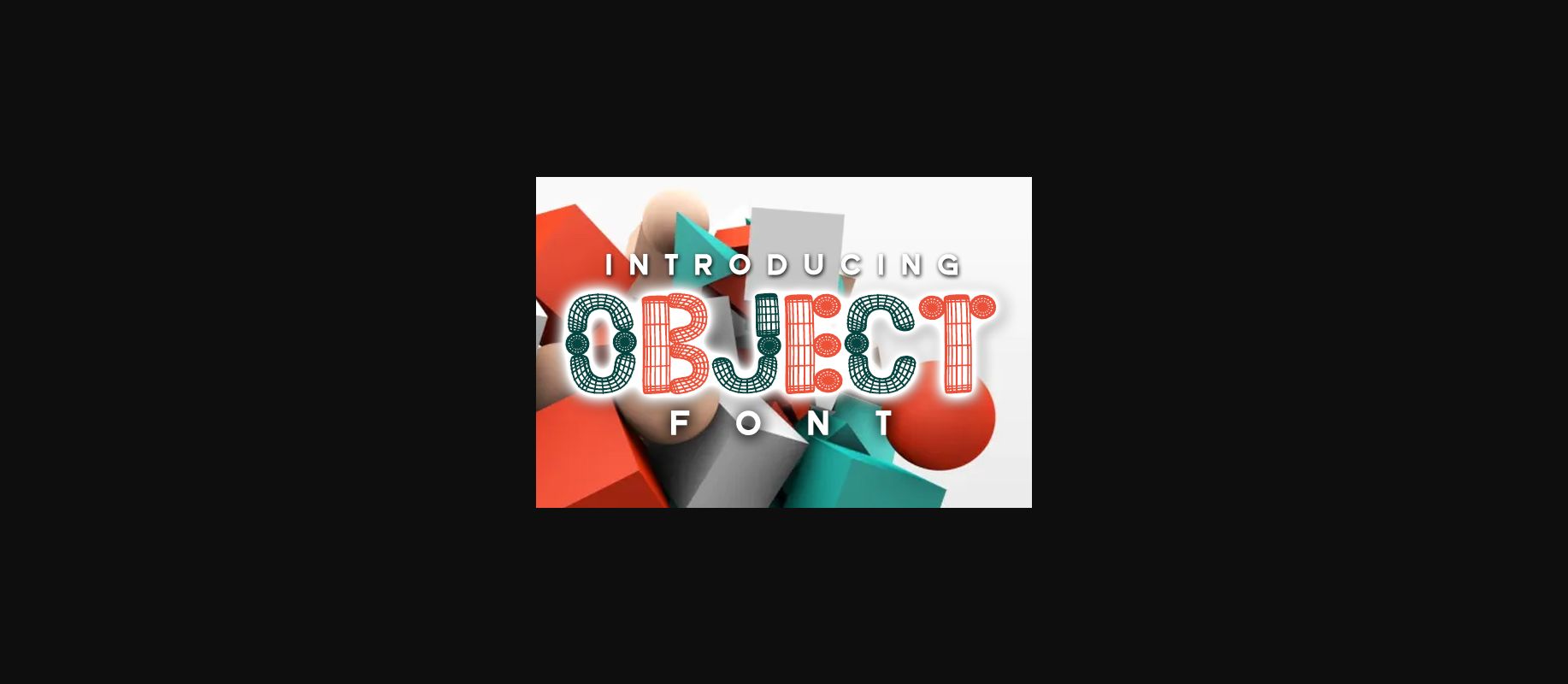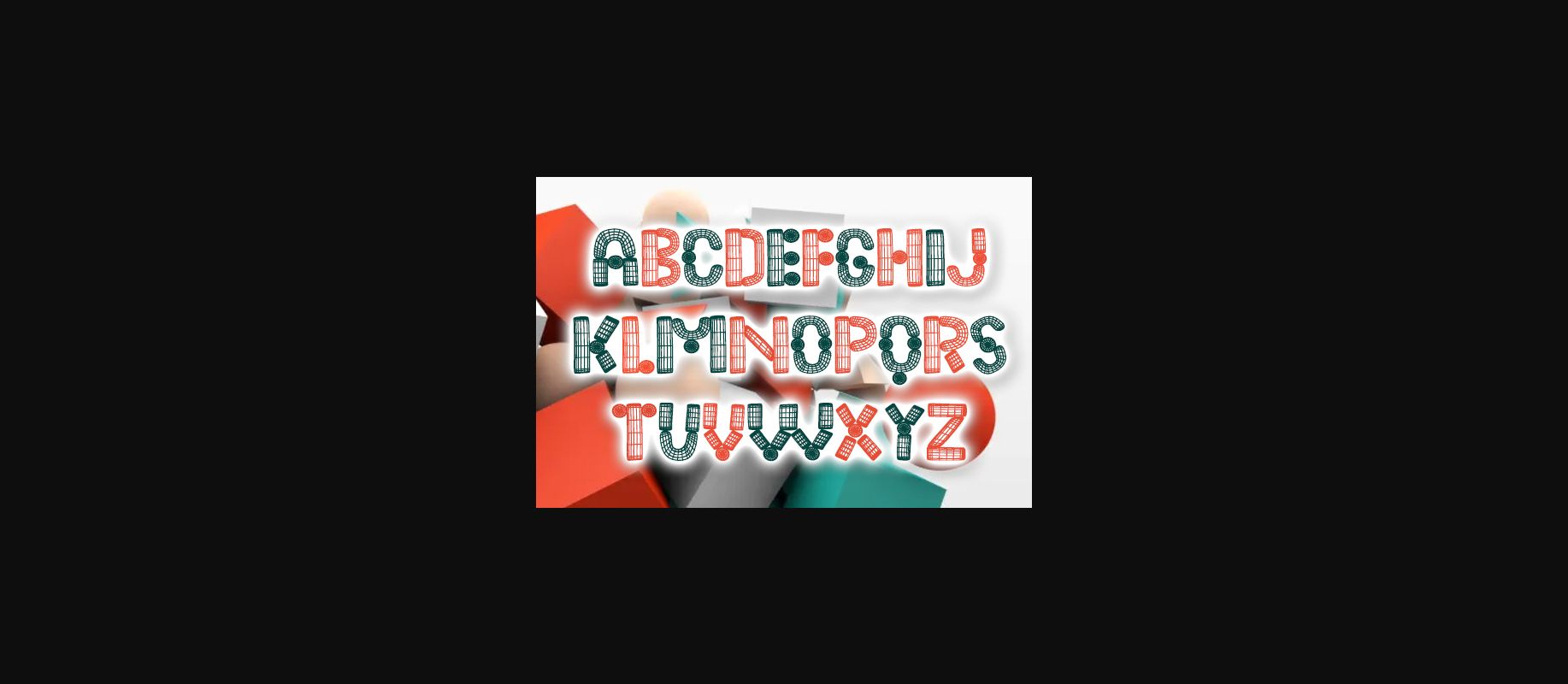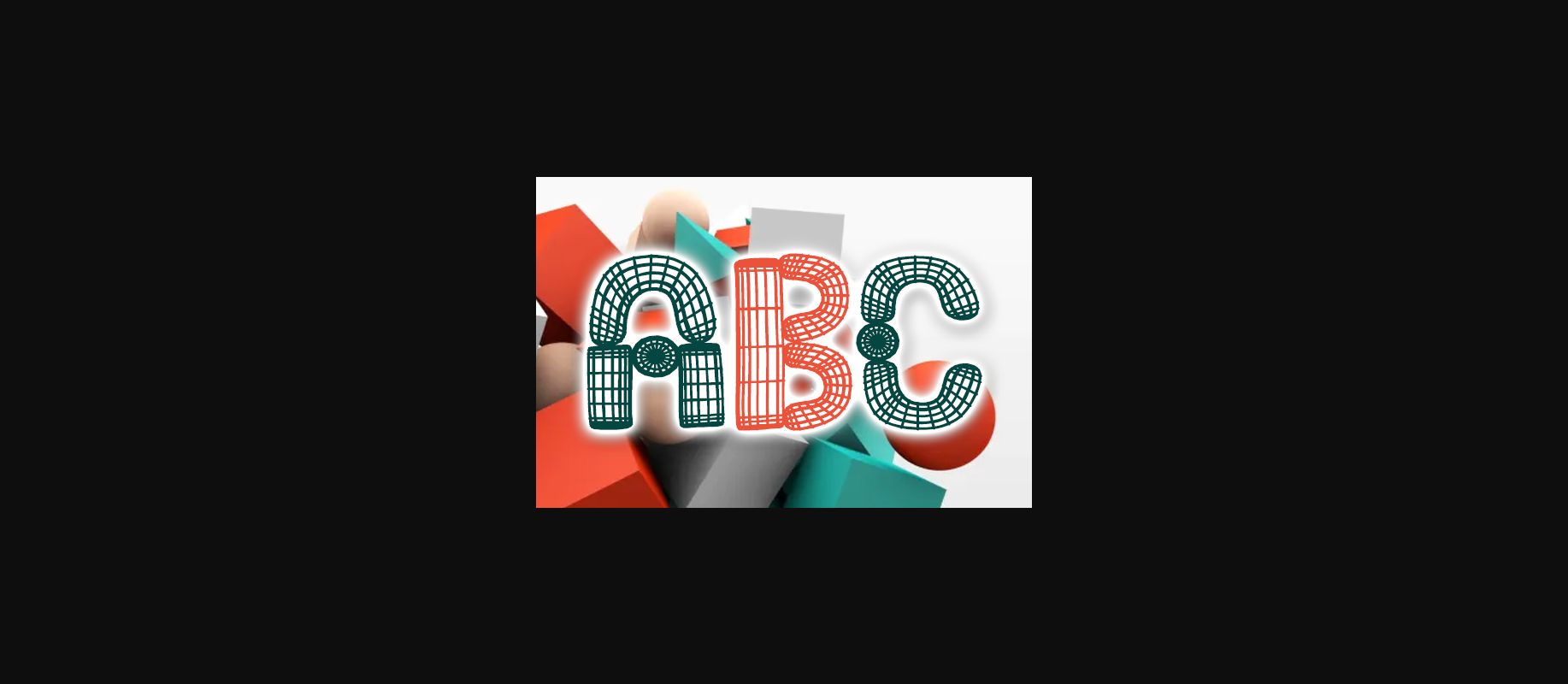
Object Font
About Object Font
Object is an awesome 3D decorative font defined by a wireframe texture. It will look stunning on every poster, banner, or print that you wish to design.